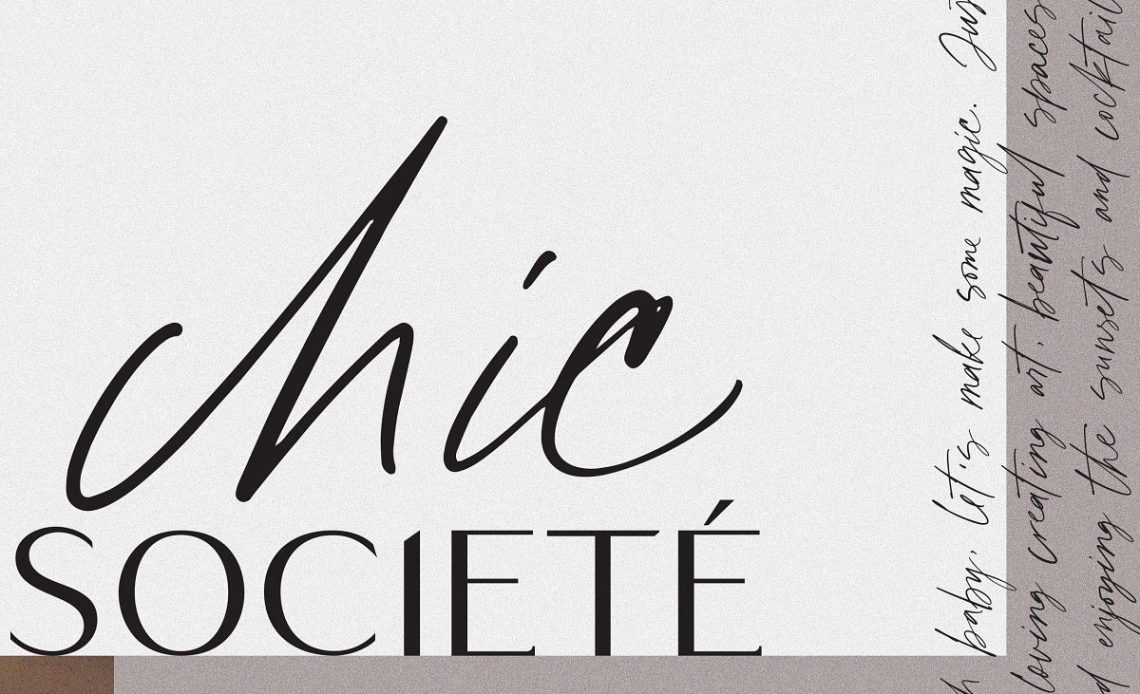
Looking for the best fonts to elevate your Instagram Reels? Look no further than Chic Societe// Stylish Font Duo. Created by the talented designer PeachCreme, Chic Societe is a stunning addition to any collection. This handwriting font family features both a chic sans serif and a trendy script font, perfect for adding personality to your posts.
Inspired by the latest Instagram trends, Chic Societe's script font boasts an impressive 145 ligatures, giving you endless possibilities for customization. But what really sets Chic Societe apart is the pure joy PeachCreme felt while creating it. This font duo is a labor of love, and it shows in every stroke and curve.
So why settle for boring, generic fonts when you can add some personality and style to your social media presence? Download Chic Societe// Stylish Font Duo today and make your posts stand out from the crowd!